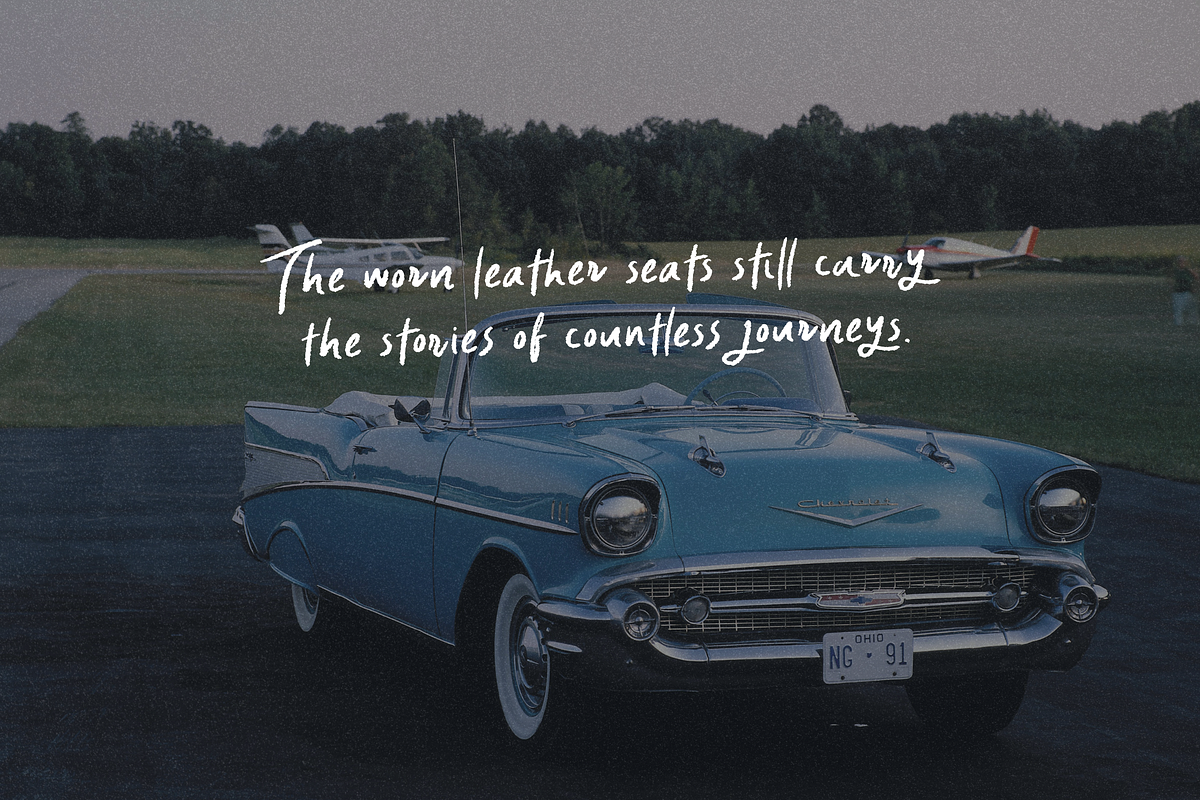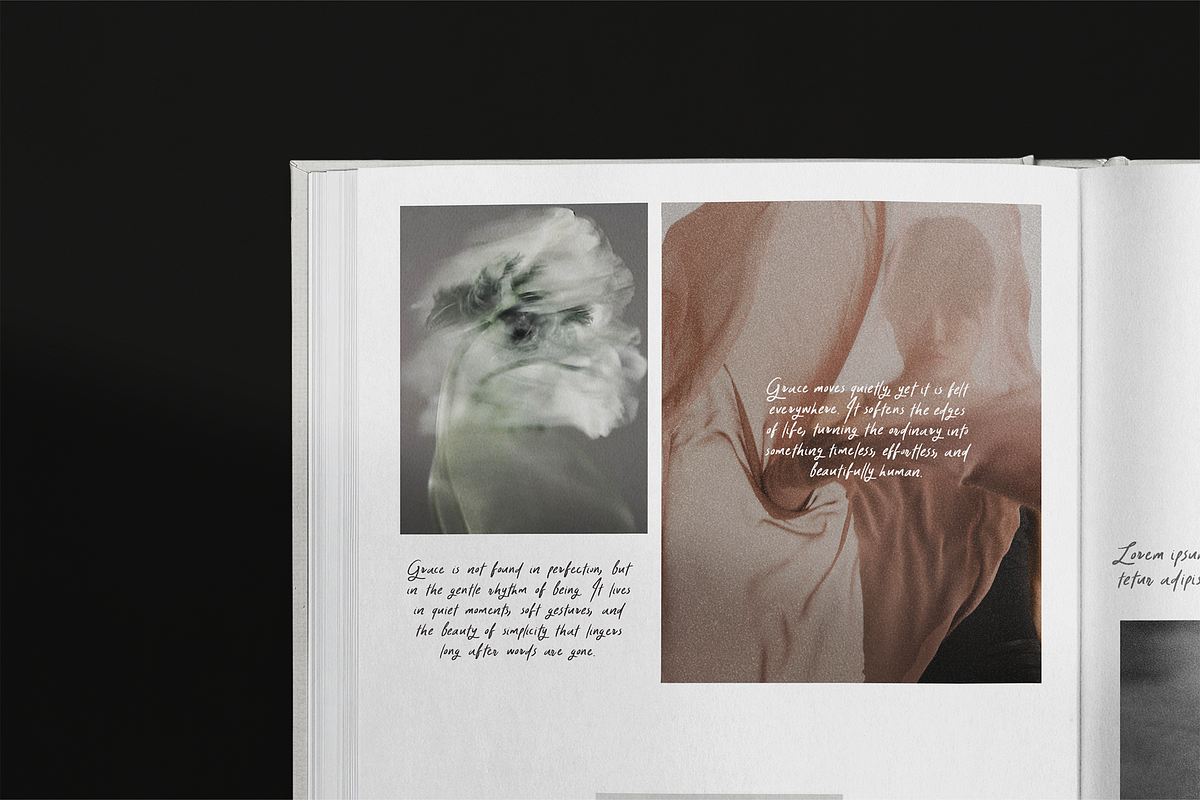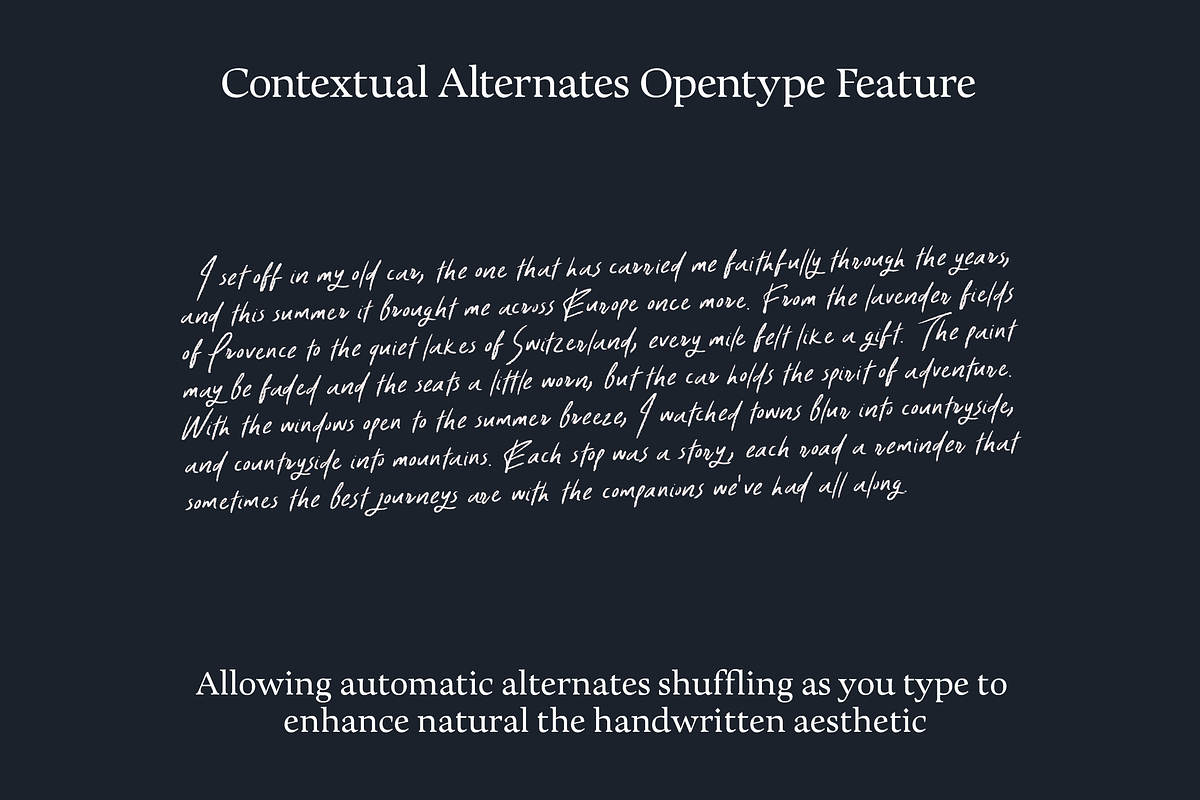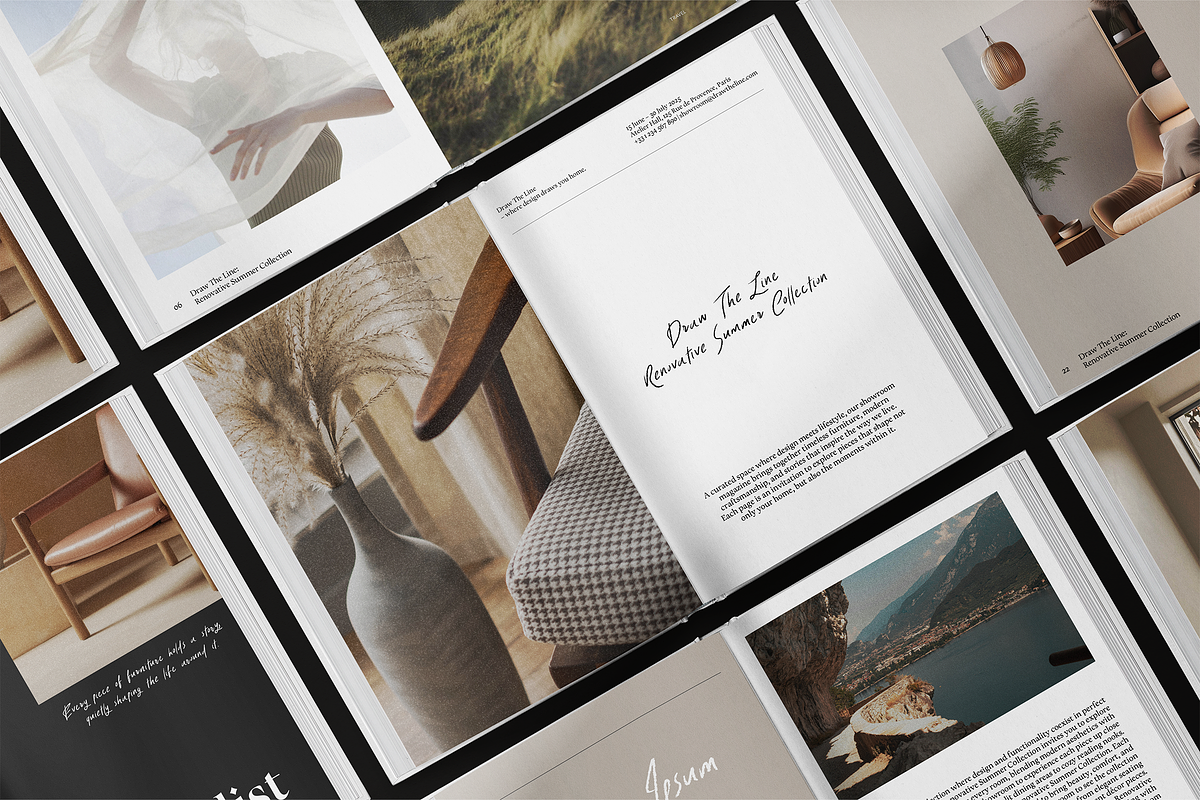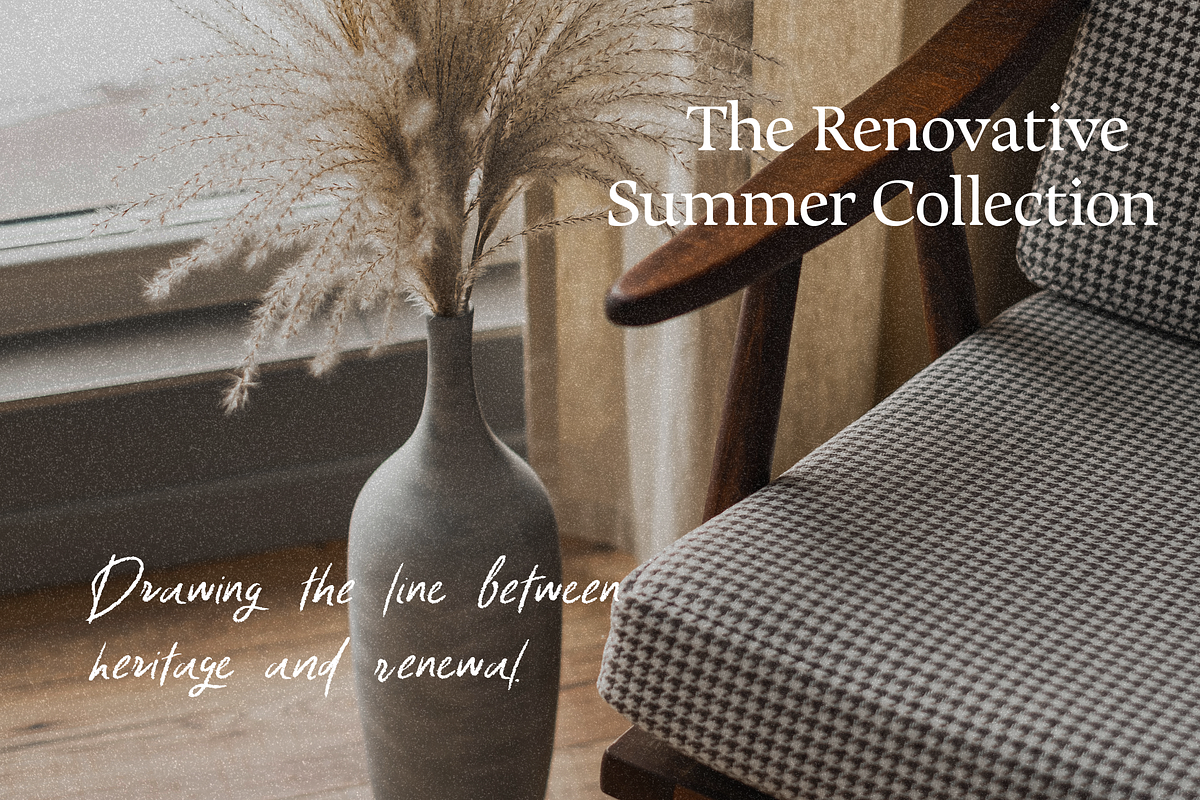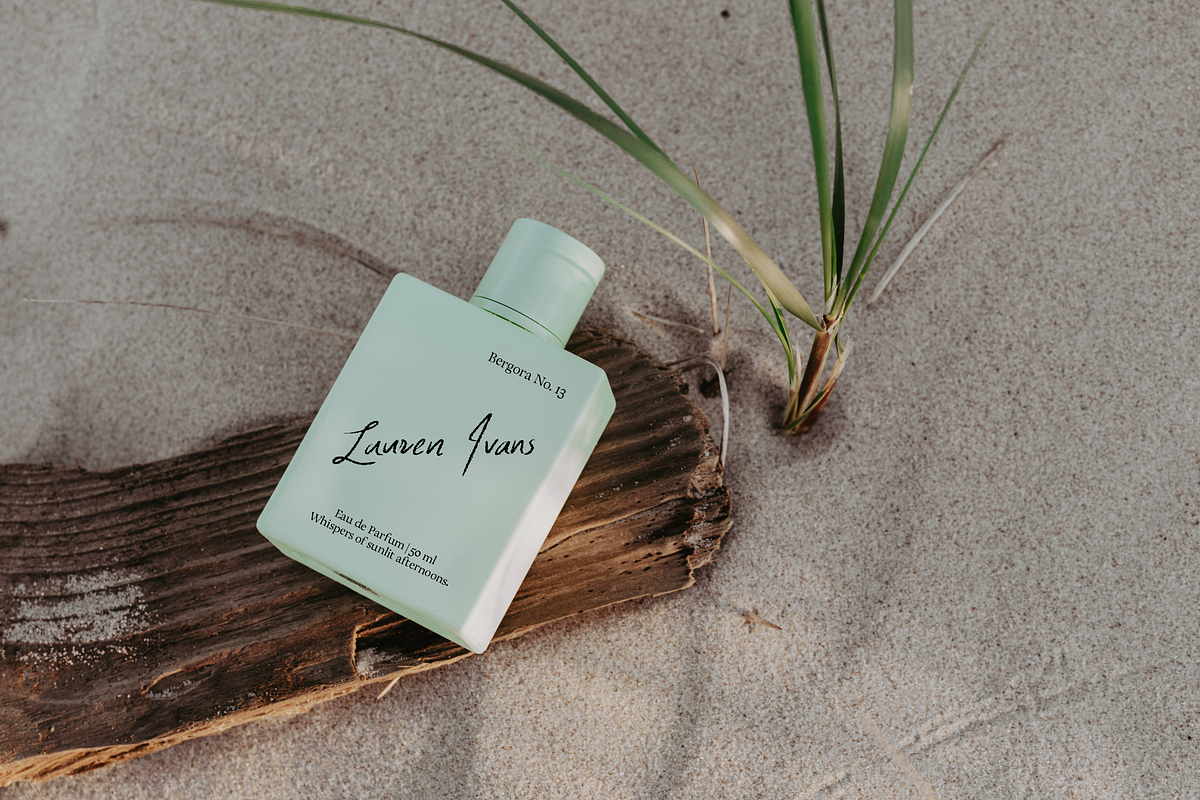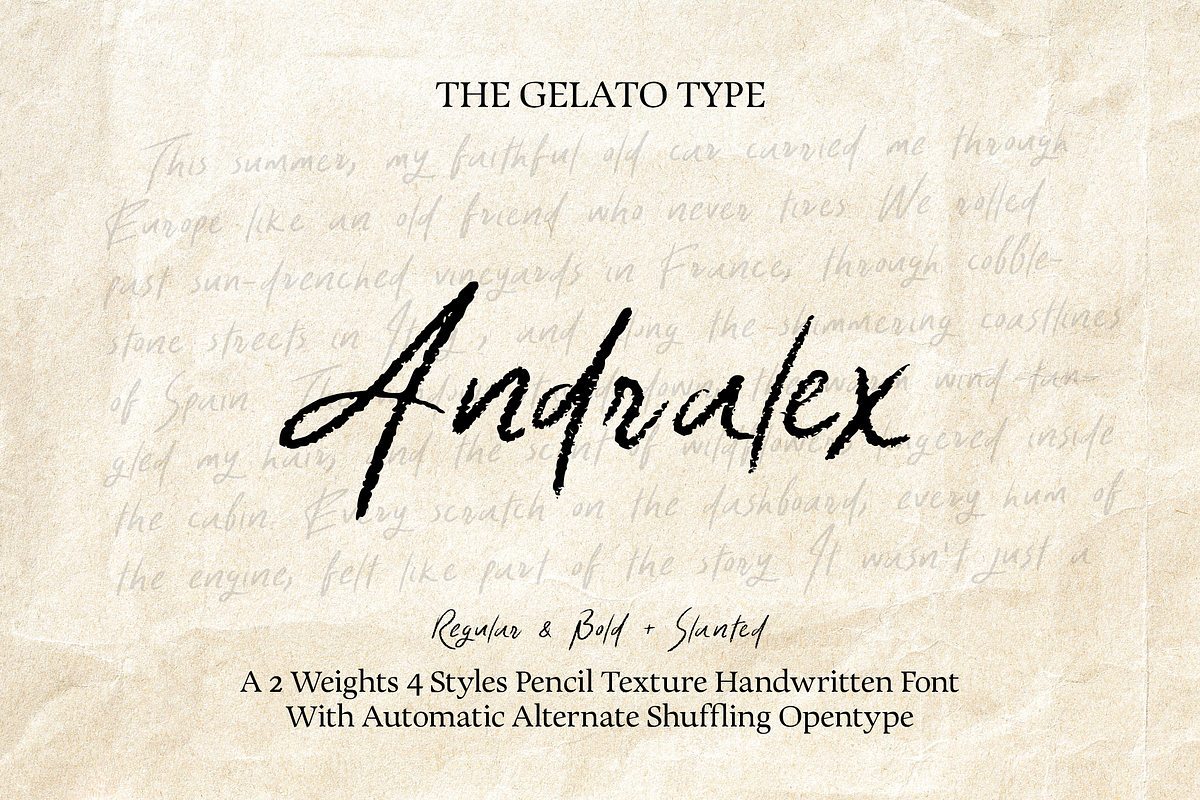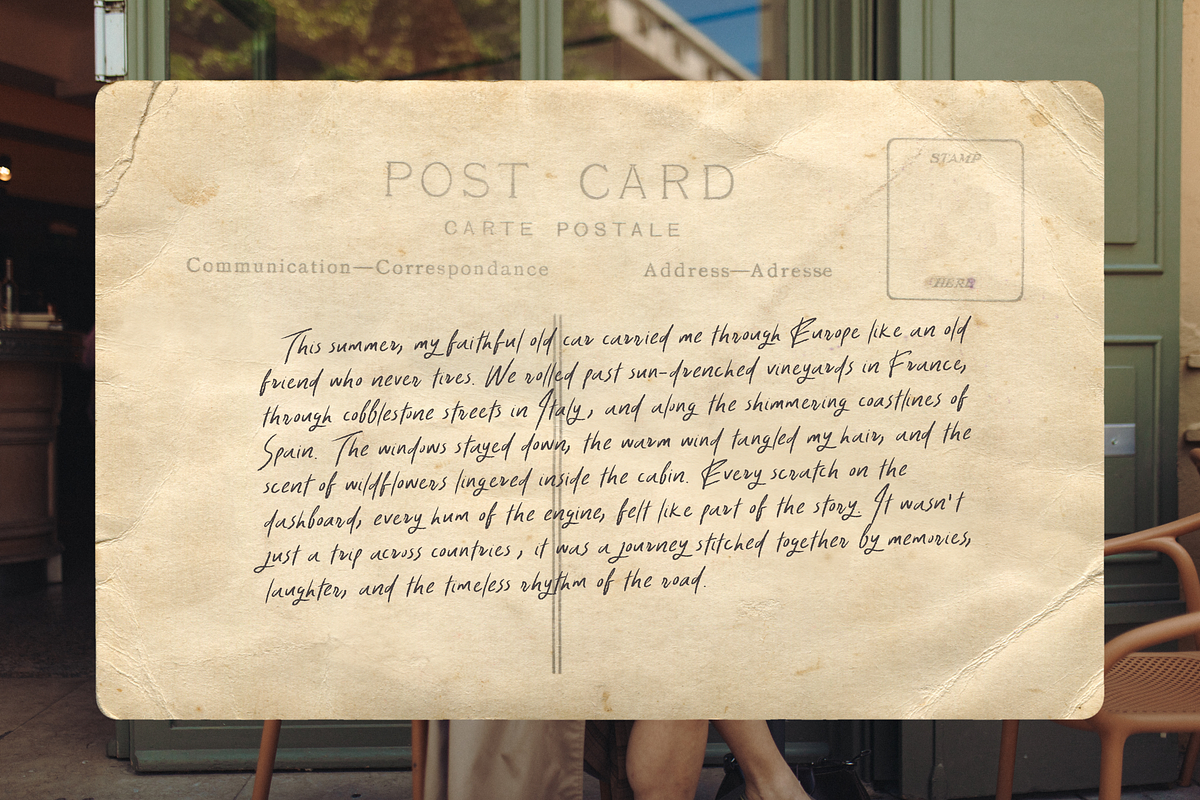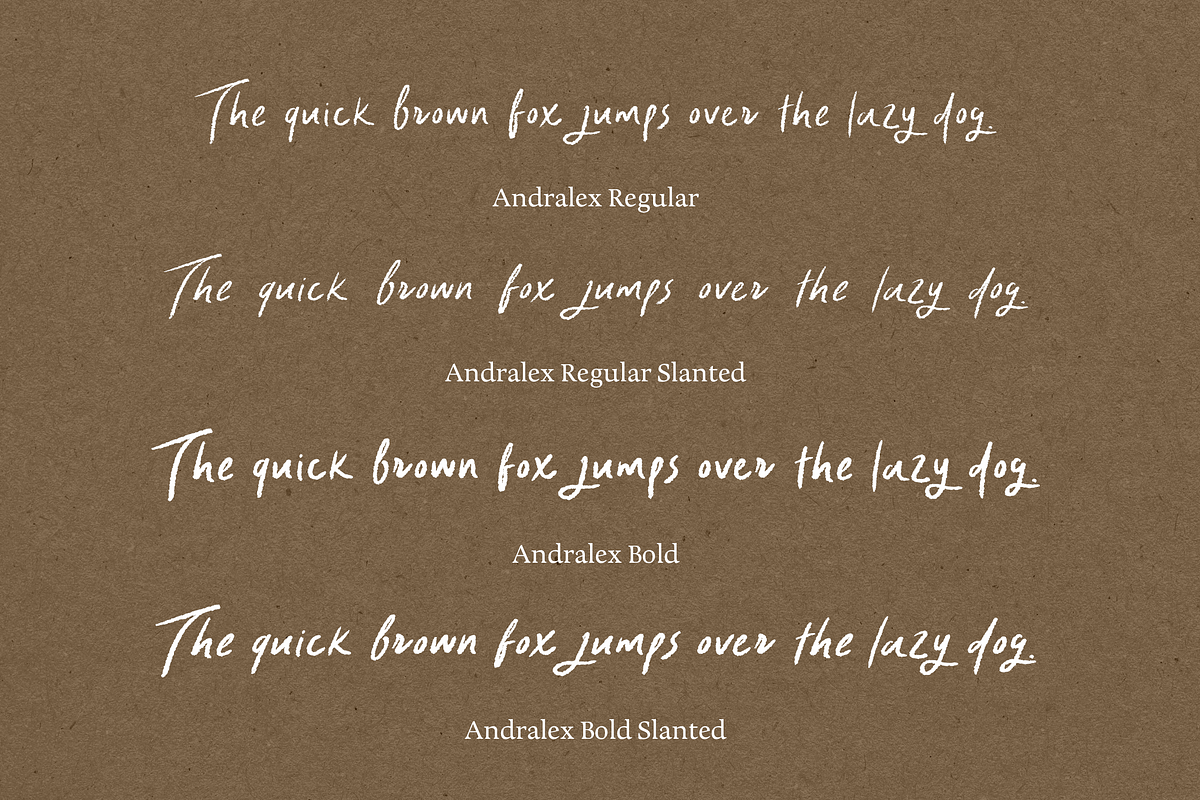
Andralex Handwritten Font
Introducing Andralex—a graceful pencil-textured handwritten font that blends natural charm with modern versatility. With its organic strokes and hand-crafted details, Andralex is the perfect choice for adding warmth and authenticity to your creative projects.
- Natural Pencil Texture: Each letter carries the subtle irregularities of real pencil work, delivering a beautifully organic, hand-drawn quality to your designs.
- Multilingual Support: Designed with an extensive character set, Andralex allows you to share your words seamlessly across different languages.
- Contextual Alternates: Featuring 2 sets of alternates, the OpenType feature automatically shuffles between characters as you type. This ensures a natural handwritten flow, avoiding repetitive letterforms for a more dynamic and authentic look.
- Two Weights, Four Styles: Andralex includes Regular and Bold weights, each paired with a Slanted version. With 4 styles in total, you’ll have the flexibility to create striking contrasts and versatile compositions.
From heartfelt notes and elegant invitations to branding and social media graphics, Andralex delivers a personal touch with refined charm. Elevate your designs with the timeless appeal of this stunning pencil-textured handwritten typeface.